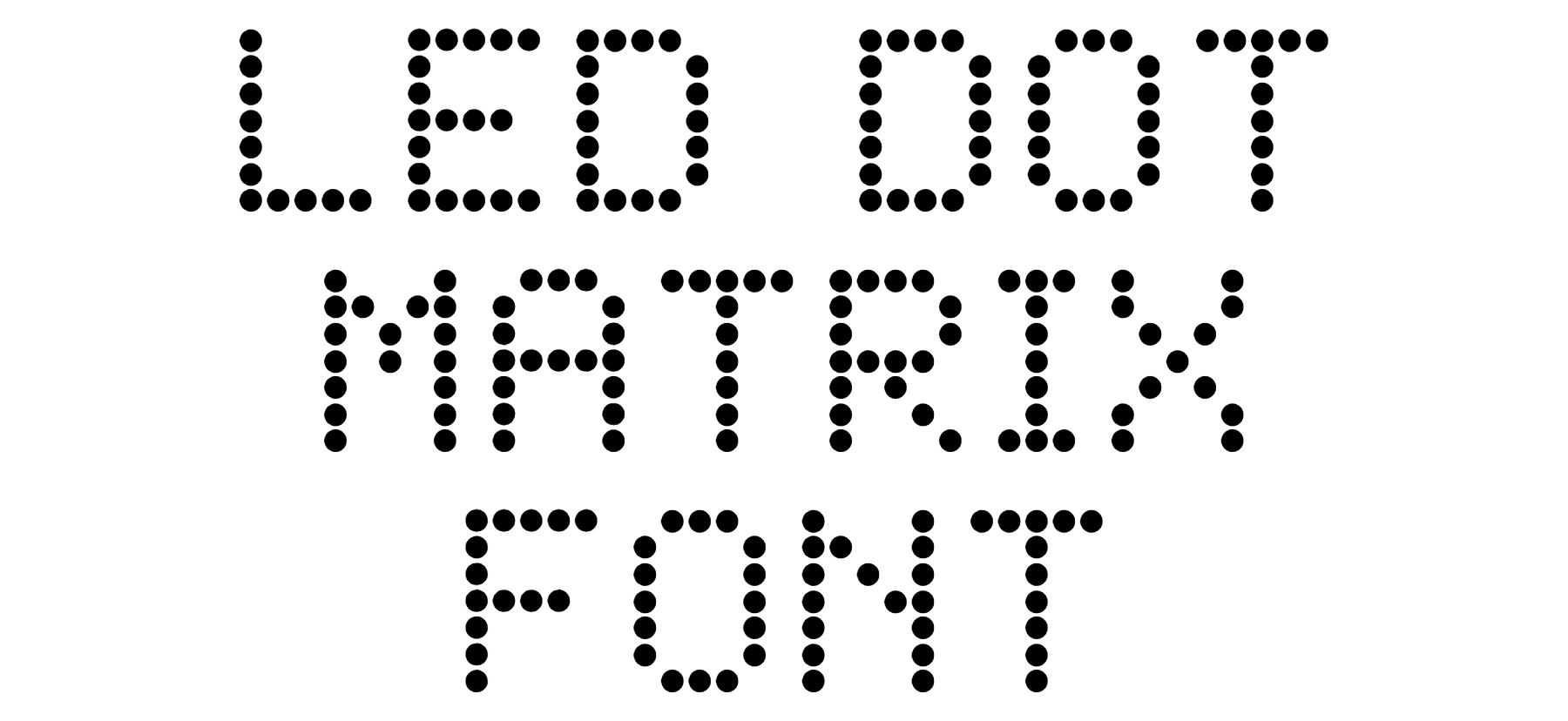
LED Dot Matrix Font
LED Dot Matrix is a techno font created by Onur Cem TAN and released through Krafti Lab. Its angular, engineered shapes look right at home on screens and tech products. You can download it for free and test it with your own words in the preview above.
• Designer: Onur Cem TAN
• Publisher: Krafti Lab
• Category: Techno font
• Characters: A–Z, a–z, 0–9 and basic punctuation
• Languages: English and Italian
What You Can Type With LED Dot Matrix
You get every letter from A to Z in both cases and all the numbers from 0 to 9, which means LED Dot Matrix can handle full sentences, dates and prices. Everyday marks like !, ?, @ and $ are there too. Thanks to its accented letters, it also works for Italian, not just English.
Where LED Dot Matrix Works Best
LED Dot Matrix is a natural fit for gaming logos, tech branding and futuristic posters. The file has no kerning data, so in logos and big titles check pairs like AV, To and Wa and tighten the spacing by hand. Try it on a dark background with a bright accent color for a sharp, modern look.
Who designed LED Dot Matrix font?
LED Dot Matrix was designed by Onur Cem TAN and published by Krafti Lab.
Does LED Dot Matrix support accented letters?
Yes. LED Dot Matrix includes the accented letters needed for Italian, so it works for more than just English.
What fonts pair well with LED Dot Matrix?
A simple sans serif like Roboto keeps longer text easy to read next to it.